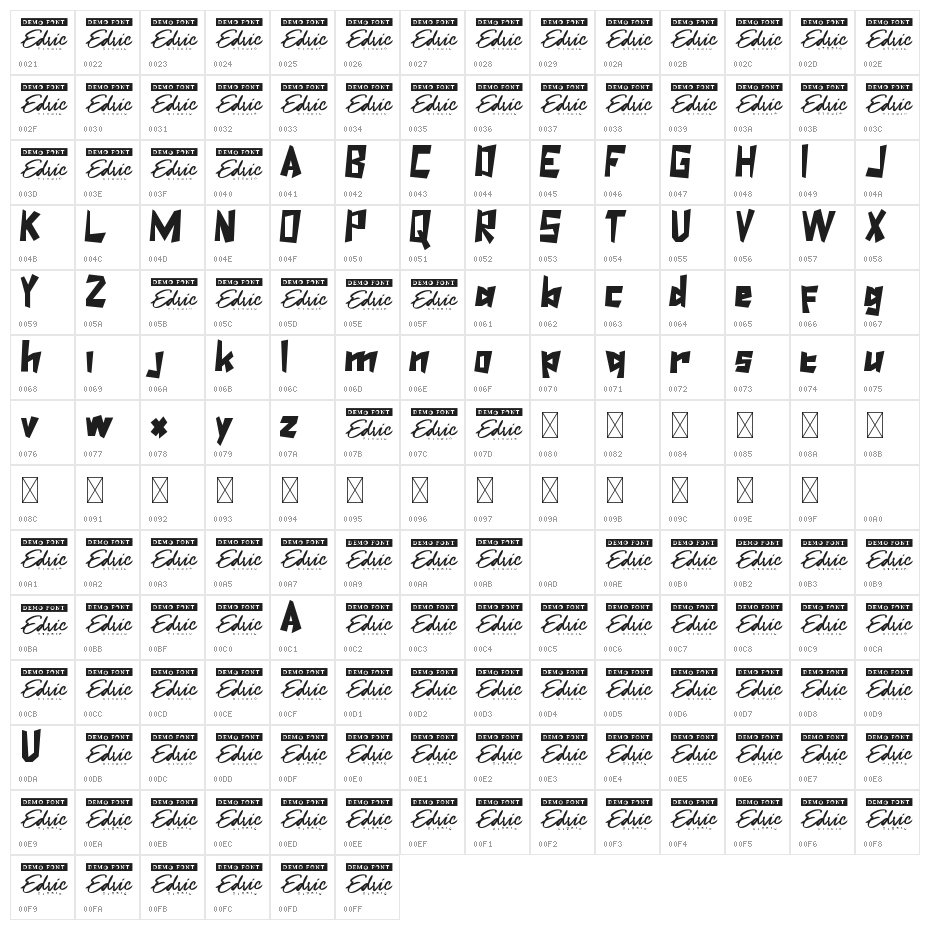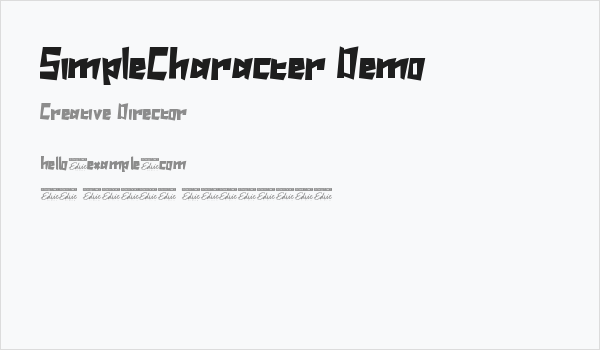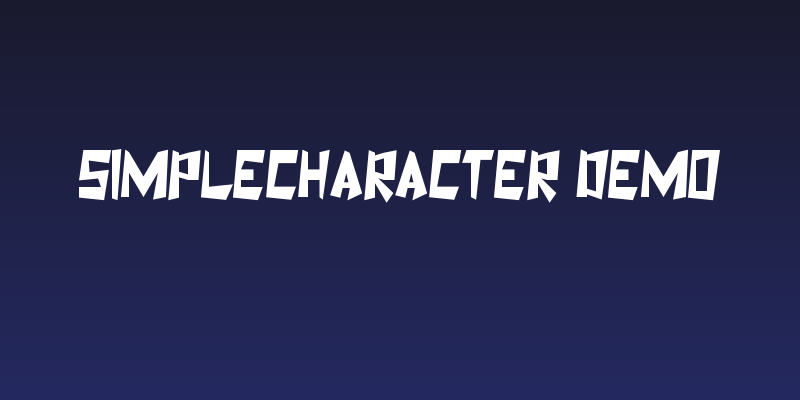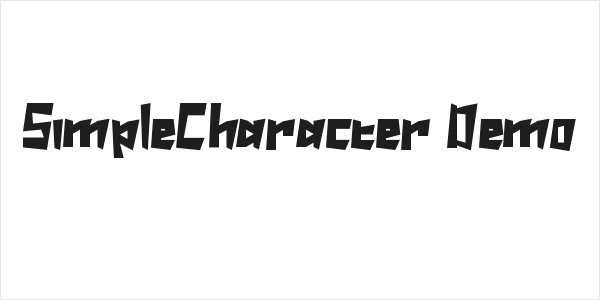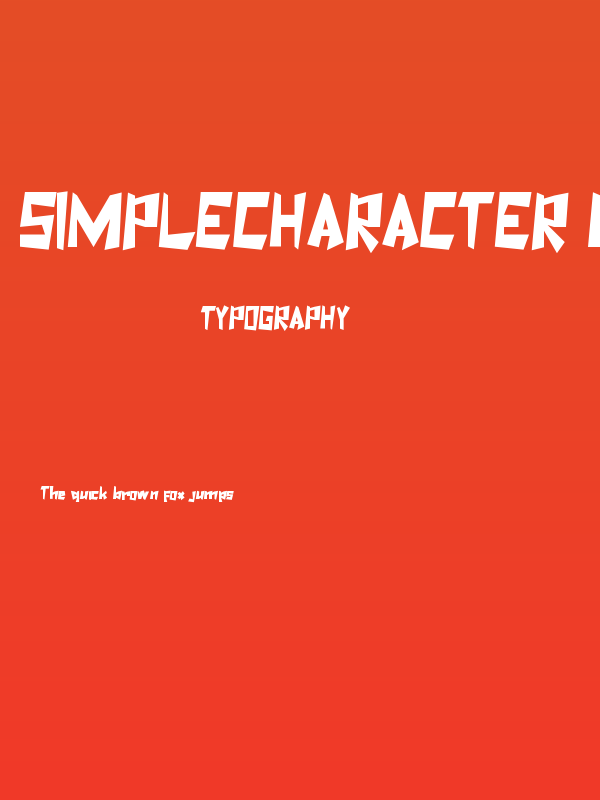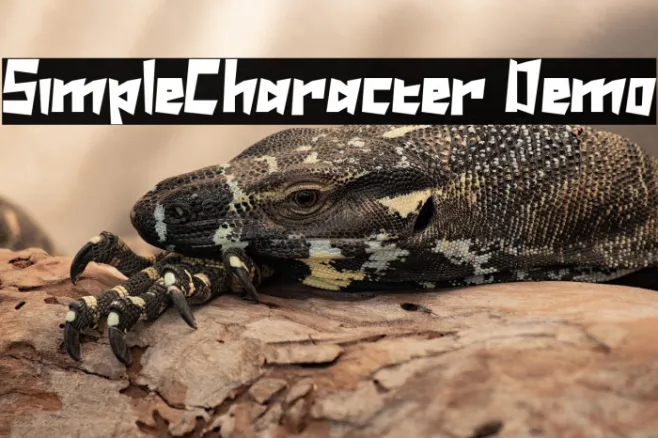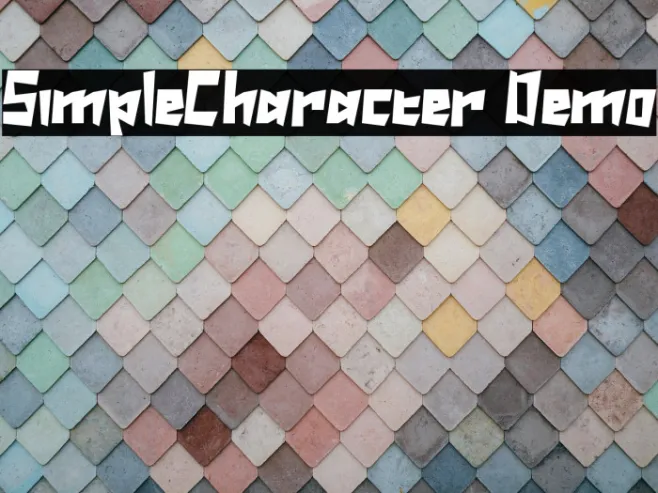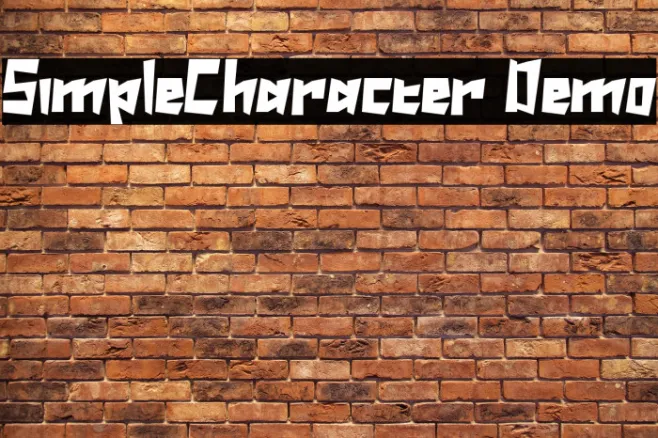
SimpleCharacter Demo Font
SimpleCharacter Demo Description
This font features a bold and dynamic style with sharp, angular edges that give it a modern and edgy appearance. The uppercase letters are particularly striking, with a geometric design that emphasizes strong lines and sharp corners. The lowercase letters maintain this angular theme but with a slightly softer approach, providing a nice contrast to the uppercase. The font's overall aesthetic is bold and attention-grabbing, making it ideal for projects that require a strong visual impact. The characters are tightly spaced, adding to the compact and powerful feel of the font. This font is well-suited for headlines, posters, and any design that aims to make a statement.
| Proposed Projects | Ideal for use in posters, headlines, branding, and any design requiring a bold statement. |